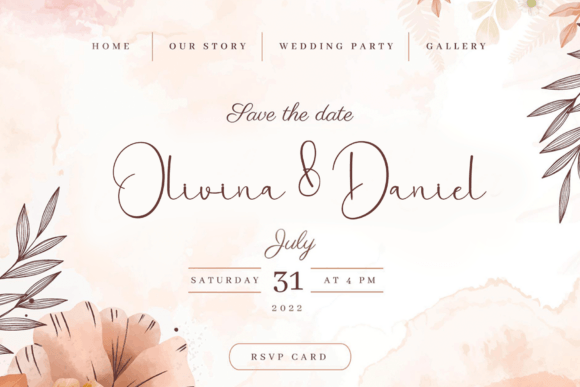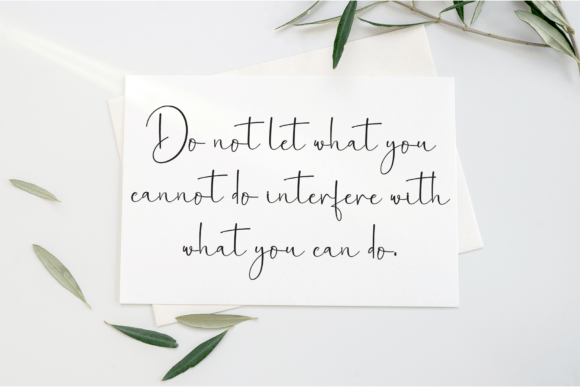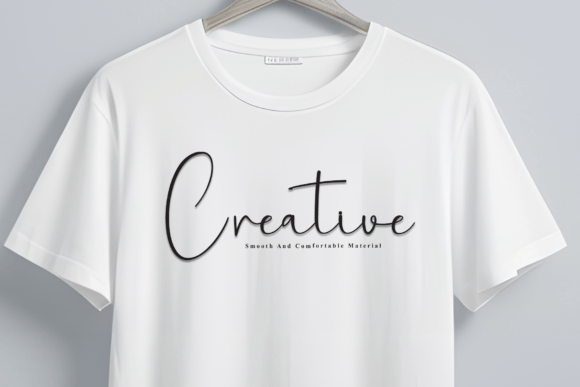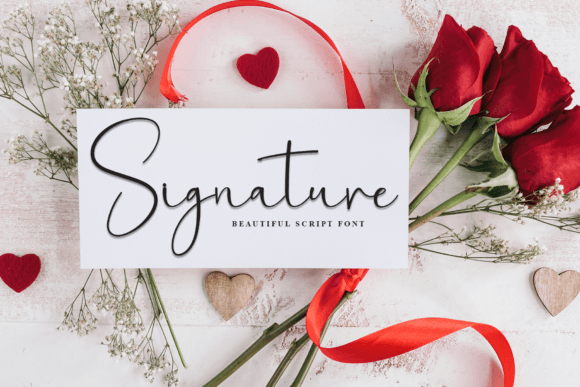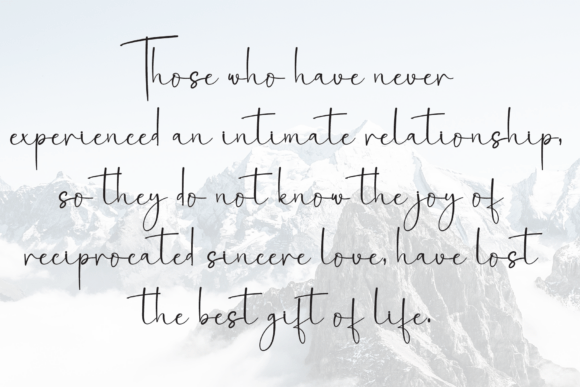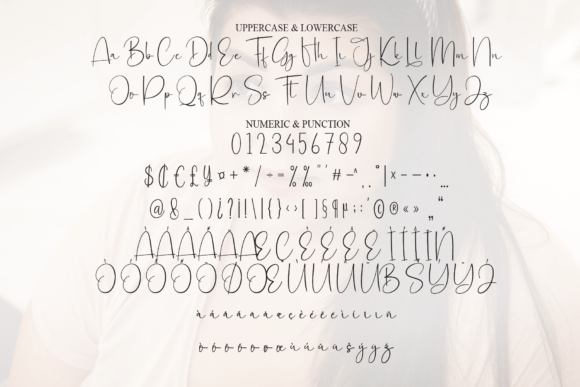
Introduction to Chubbyday Font
Chubbyday is a lovely handwritten script font that feels elegant and playful.
Its flowing, smooth lines give it a personal and artistic touch, perfect for creating beautiful designs like cards, logos, or invitations .
Chubbyday Font offers exceptional quality and versatility, making it a valuable addition to your design toolkit. Whether you’re creating for personal projects or commercial use, Chubbyday Font delivers professional results.